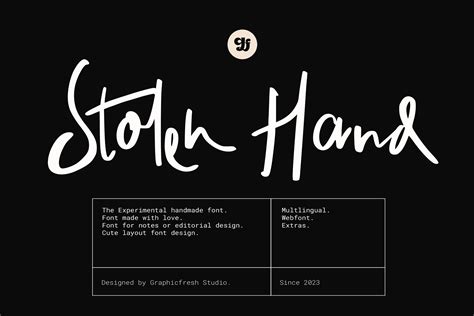
Hand lettering fonts have become increasingly popular in the world of graphic design, branding, and digital art. These fonts, characterized by their unique, hand-drawn appearance, add a personal touch to any project. Whether you're a professional designer or a hobbyist, understanding the nuances of hand lettering fonts can significantly enhance your creative output.
What Are Hand Lettering Fonts?
Hand lettering fonts are digital typefaces that mimic the look of hand-drawn or hand-painted letters. They are designed to evoke a sense of authenticity and craftsmanship, making them ideal for projects that require a personal, artisanal feel. Unlike traditional fonts, which are often uniform and mechanical, hand lettering fonts vary in style, thickness, and form, giving them a more organic and dynamic appearance.
Types of Hand Lettering Fonts
Hand lettering fonts come in a variety of styles, each with its unique characteristics. Here are some of the most common types:
- Brush Script Fonts: These fonts mimic the look of letters written with a brush, often featuring thick and thin strokes that create a fluid, dynamic effect.
- Calligraphy Fonts: Inspired by traditional calligraphy, these fonts have elegant, flowing lines and are often used for formal invitations and certificates.
- Chalkboard Fonts: These fonts resemble letters written in chalk, giving them a playful, casual vibe. They are perfect for menus, signs, and other informal projects.
- Grunge Fonts: With a distressed, worn-out appearance, grunge fonts add a raw, edgy feel to designs. They are often used in posters, album covers, and other artistic projects.
- Vintage Fonts: These fonts evoke a sense of nostalgia, with styles that harken back to different eras, such as the 1920s, 1950s, or 1970s. They are great for retro-themed designs and branding.
How to Choose the Right Hand Lettering Font
Selecting the right hand lettering font depends on the specific needs of your project. Here are some factors to consider:
- Purpose: Determine the purpose of your design. Is it for a formal event, a casual gathering, or a commercial product? The purpose will guide your choice of font style.
- Audience: Consider your target audience. Different demographics may respond better to certain styles. For example, a younger audience might appreciate a more playful, modern font, while an older audience might prefer a classic, elegant style.
- Legibility: Ensure that the font is easy to read, especially if it will be used in small sizes or from a distance. Some hand lettering fonts can be more decorative than practical, so choose wisely.
- Branding: If you’re designing for a brand, make sure the font aligns with the brand’s identity and values. Consistency is key in branding, so the font should complement the overall aesthetic.
Creating Your Own Hand Lettering Fonts
If you’re feeling adventurous, you can create your own hand lettering fonts. This process involves several steps, from sketching to digitizing your design. Here’s a basic guide to get you started:
- Sketch Your Design: Start by sketching your letters on paper. Experiment with different styles and thicknesses until you find a look that you like.
- Scan or Photograph: Once you’re satisfied with your sketch, scan or photograph it at a high resolution. This will serve as the basis for your digital font.
- Vectorize Your Design: Use vector graphic software like Adobe Illustrator or Inkscape to trace over your scanned image. This will convert your sketch into a scalable vector graphic (SVG) that can be used to create a font.
- Create the Font: Use font creation software like FontForge or Glyphs to turn your vector graphics into a functional font file. This involves defining each character, setting kerning, and ensuring consistency across the alphabet.
- Test and Refine: Test your font in various applications to ensure it works well in different contexts. Make any necessary adjustments to improve legibility and aesthetic appeal.
📝 Note: Creating a font from scratch can be a time-consuming process, but the results can be incredibly rewarding. If you're new to font creation, consider starting with a simpler design and gradually taking on more complex projects as you gain experience.
Popular Hand Lettering Fonts
There are countless hand lettering fonts available, each with its unique charm. Here are some popular options that you might find useful:
| Font Name | Style | Use Case |
| Pacifico | Brush Script | Casual, playful designs |
| Great Vibes | Calligraphy | Weddings, invitations |
| Lobster | Brush Script | Headlines, posters |
| Permanent Marker | Grunge | Edgy, artistic projects |
| Vintage | Retro-themed designs |
Tips for Using Hand Lettering Fonts
To make the most of hand lettering fonts, consider the following tips:
- Pairing Fonts: Hand lettering fonts often work best when paired with simpler, more straightforward fonts. This creates a balance and ensures that the design remains legible.